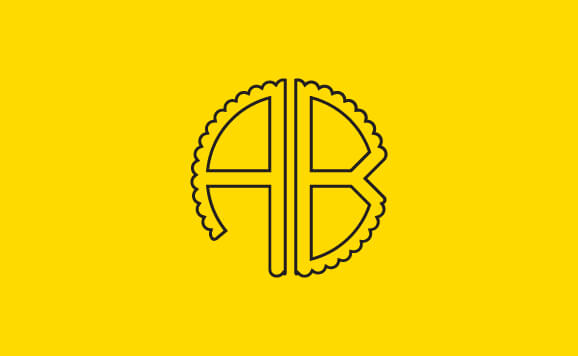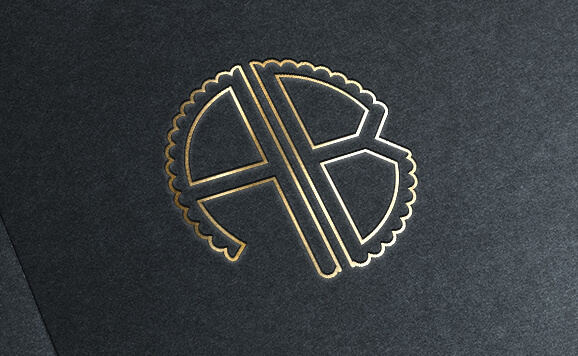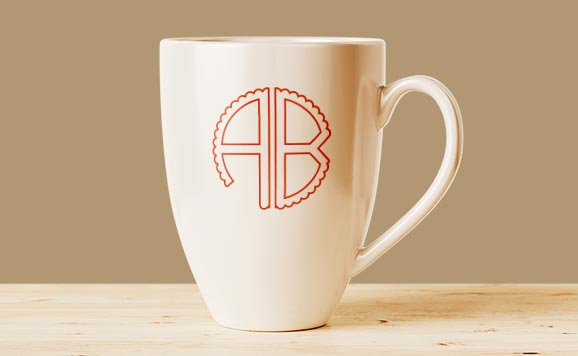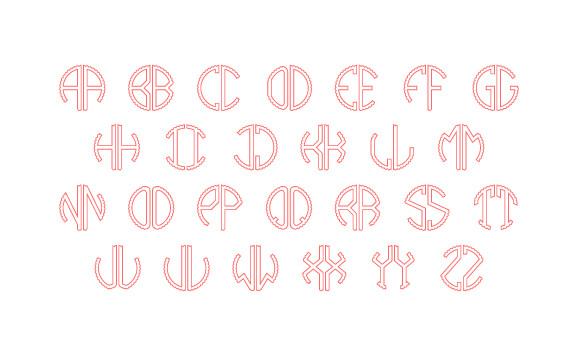
Round 2 Letters Scalloped Outline Monogram Font
Round 2 Letters Scalloped Outline Monogram Font is an exclusive 2-letter monogram font by MonogramBros.
Round 2 Letters Scalloped Outline Monogram Font sold as true-type OTF & TTF format files compatible with any modern computing device and software. It comes with latest advanced font features such as Contextual Alternates, allowing to use a single font file for both left and right monogram letters.